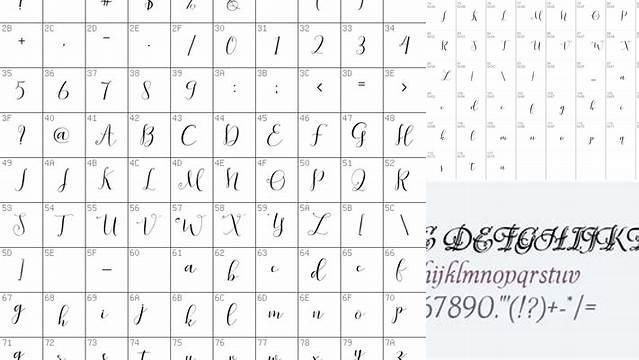
Symphony Regular OTF Font: Free Download Guide
What is Symphony Regular OTF Font?
Before we jump into the download process, let’s talk about what makes the Symphony Regular OTF font so awesome. This font is known for its elegance and readability, making it a favorite among designers and creatives. It’s a versatile typeface that works well in various contexts, from branding and logos to body text and headlines. The OTF format (OpenType Font) offers advanced typography features, ensuring a high-quality appearance across different platforms and devices.
The History and Design of Symphony Regular
The Symphony Regular OTF font has a rich history, often crafted by talented typographers who pour their heart and soul into creating visually appealing and functional typefaces. The design elements typically include a balance of classic and modern aesthetics, making it adaptable to various design needs. Understanding the font's background helps appreciate its nuances and how best to utilize it in your projects. Designers often choose this font for its unique character and the subtle details that contribute to its overall appeal.
Symphony Regular OTF font boasts several key features that make it stand out. Its clean lines and balanced proportions ensure legibility, even at smaller sizes. The OTF format supports a wide range of characters and glyphs, including ligatures and alternate characters, providing designers with ample creative flexibility. Whether you’re working on a website, print material, or digital ad, the font’s characteristics make it a reliable choice. The font's weight and spacing are meticulously crafted to ensure a harmonious visual experience, making it a go-to option for professional designers.
Why Choose Symphony Regular OTF?
Choosing the right font can make or break your design. So, why should you choose Symphony Regular OTF font? Well, it's not just about aesthetics; it's about functionality too. This font strikes a perfect balance between elegance and readability, making it suitable for a wide range of applications. Plus, the OTF format ensures compatibility and quality across various platforms.
Versatility in Design Projects
The Symphony Regular OTF font is incredibly versatile, fitting seamlessly into different design projects. From creating a sophisticated logo to designing engaging website content, its adaptability is a major asset. It works equally well for print materials like brochures and posters, making it a comprehensive choice for any designer. The font's ability to maintain clarity and style across various mediums makes it a valuable addition to any font library. Its timeless design ensures that it remains relevant and stylish, regardless of current design trends.
Readability and Legibility
One of the most crucial aspects of any font is its readability and legibility. The Symphony Regular OTF font excels in this area. Its clear and distinct letterforms make it easy to read, even in long passages of text. This is particularly important for projects where content is king, such as websites, books, and articles. The font’s design considers both the aesthetic appeal and the practical need for clear communication, ensuring that your message is conveyed effectively. Proper kerning and letter spacing contribute to the font’s overall legibility, making it a preferred choice for professional use.
Professional and Elegant Aesthetic
If you’re aiming for a professional and elegant look, the Symphony Regular OTF font is a fantastic choice. Its sophisticated design adds a touch of class to any project, making it ideal for branding, invitations, and formal documents. The font’s subtle curves and refined lines convey a sense of sophistication and attention to detail, enhancing the overall impact of your design. Whether you're creating a corporate identity or designing a wedding invitation, this font’s aesthetic qualities ensure a polished and refined final product.